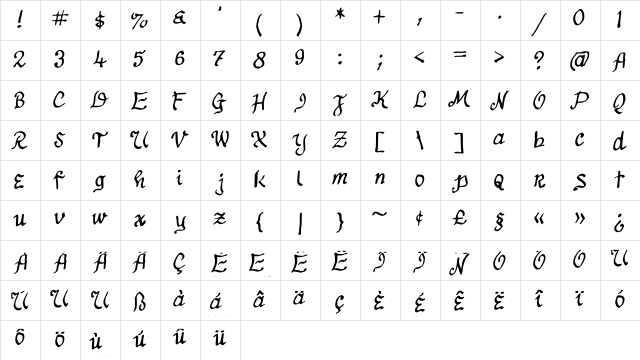
12Stepsalternate Medium
Design Context for 12Stepsalternate Typeface
12Stepsalternate is a composed and adaptable typeface that performs quietly and consistently across a wide range of design contexts.
Pro Tip: Use 12Stepsalternate in both headline and body roles to test its range before committing to a single application.